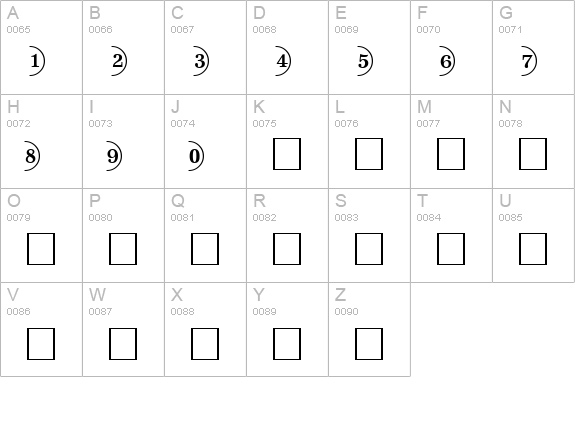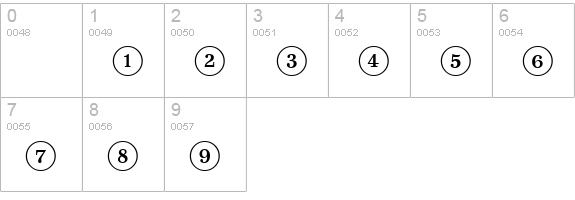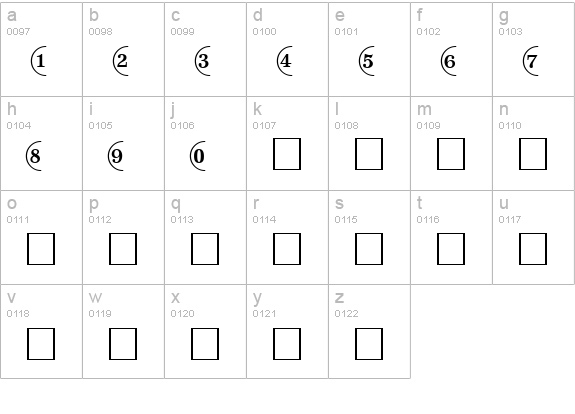
CircledNumbers Normal Font Details
CircledNumbers Normal is the standard, neutral variant in the CircledNumbers typeface family \xE2\x80\x94 well suited to general body text, paragraphs, and standard typographic work.
CircledNumbers Normal font is a versatile and modern typeface that features numbers enclosed in stylish circles. Perfect for a wide range of design projects, from posters to websites, this font adds a touch of elegance and sophistication. The clean lines and contemporary design of CircledNumbers Normal font make it a popular choice for both print and digital applications. Best of all, CircledNumbers Normal font is available for free download at FontsMarket.com. Whether you're a designer looking to add a unique touch to your work or a student creating a presentation, this font will elevate your projects with its distinctive style. Don't miss out on the opportunity to enhance your designs with CircledNumbers Normal font - download it now and start creating stunning visuals today!